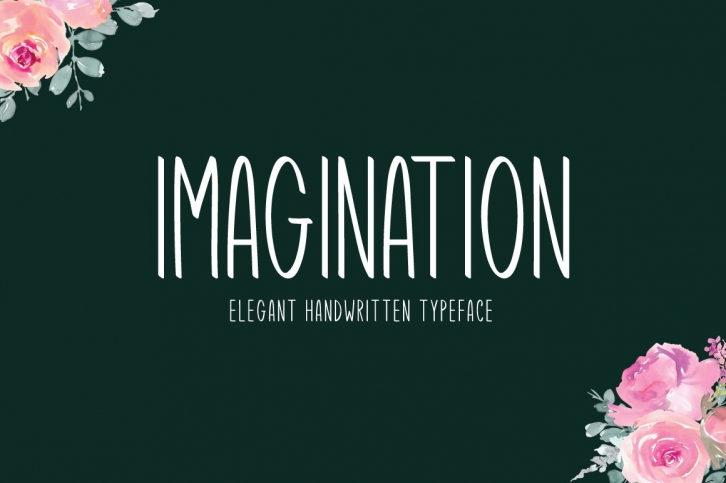
Imagination is a great font that was designed by Seemly Fonts. Imagine the amount of combinations you can create using this font! The archive is 17.28 MB and it was released on February 17, 2020. Imagination looks beautiful on wedding invitations, greeting cards, logos, posters, labels, t-shirt designs, logos, business cards and is perfect for use in ink or watercolor works, fashion, magazines, packaging and food menus, children's books and more!